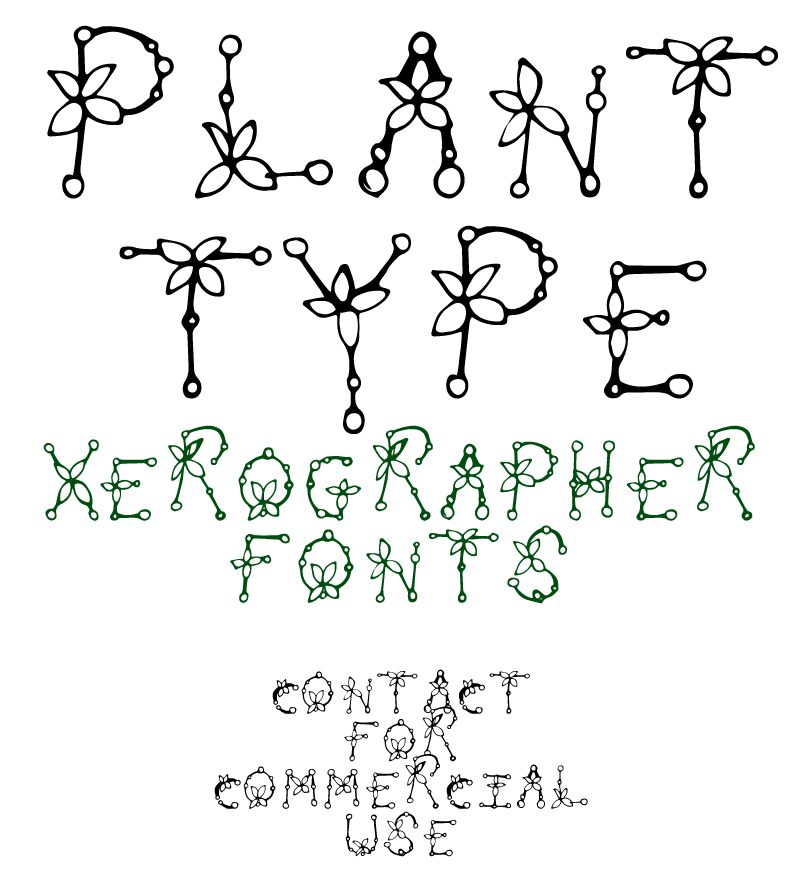
Plant Type by Xerographer Fonts is a free botanical decorative display font drawn from curling stems, leaves, buds, and simple flowers. Its thin, uneven outlines and scattered joints make each letter resemble a small piece of garden trellis assembled by hand.
Botanical illustration can continue directly through this lettering on seed packaging and garden event posters. It also suits children's nature publishing and handmade stationery. Because the plant forms are part of every letter, a title can double as a floral border or an illustrated emblem.